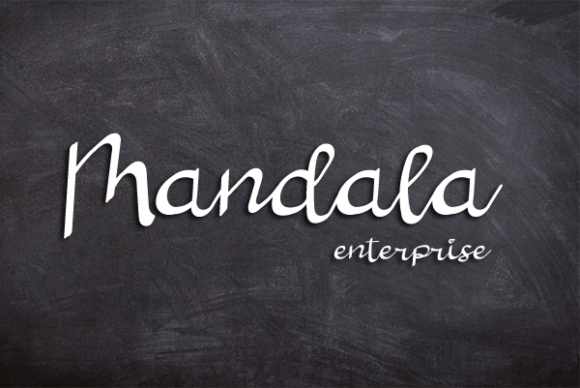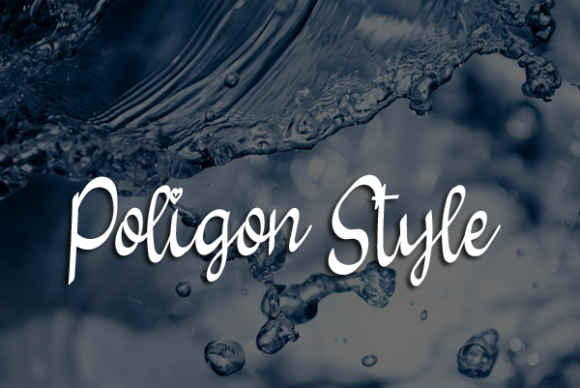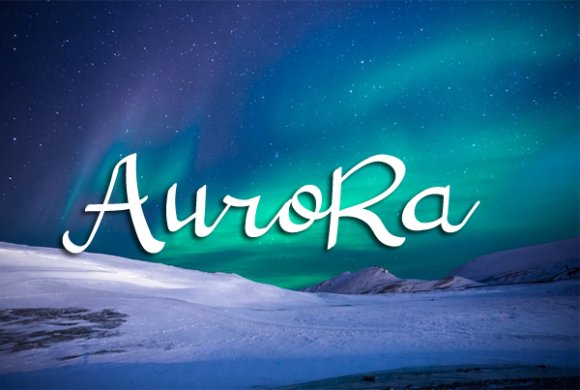
Introducing Back Ground Font: The Perfect Addition to Your Creative Projects
Are you tired of using the same old fonts in your designs? Do you want to add a touch of personality and whimsy to your projects? Look no further than Back Ground Font, a lovely script font that is sure to make your designs stand out. With its charming, playful characters that seem to dance along the baseline, Back Ground Font is the perfect addition to your most creative ideas.
What is Back Ground Font?
Back Ground Font is a unique script font that features beautiful, hand-drawn characters with a playful and charming feel. The font is designed to add a touch of elegance and sophistication to your designs, while also conveying a sense of fun and creativity. Whether you’re working on a logo, a poster, or a digital project, Back Ground Font is sure to make it shine.
Key Features of Back Ground Font
- Charming and Playful Characters: The characters in Back Ground Font are designed to be charming and playful, with a sense of movement and energy.
- Dancing Baseline: The characters in the font seem to dance along the baseline, adding a sense of whimsy and fun to your designs.
- Hand-Drawn: The font is hand-drawn, giving it a unique and personal feel.
- Elegant and Sophisticated: Despite its playful feel, Back Ground Font is also elegant and sophisticated, making it perfect for a wide range of design projects.
Why Use Back Ground Font?
There are many reasons why you should consider using Back Ground Font in your designs. Here are just a few:
- Adds Personality: Back Ground Font adds a touch of personality and whimsy to your designs, making them stand out from the crowd.
- Versatile: The font is versatile and can be used in a wide range of design projects, from logos and posters to digital projects and more.
- Easy to Read: Despite its playful feel, Back Ground Font is easy to read, making it perfect for use in body text as well as headlines.
- Unique: The font is unique and eye-catching, making it perfect for designers who want to create something truly special.
How to Use Back Ground Font
Using Back Ground Font in your designs is easy. Here are a few tips to get you started:
- Use it as a Headline Font: Back Ground Font is perfect for use as a headline font, adding a touch of personality and whimsy to your titles and headings.
- Pair it with a Simple Font: For body text, pair Back Ground Font with a simple font to create a striking contrast.
- Experiment with Colors: Back Ground Font looks great in a wide range of colors, so don’t be afraid to experiment and find the perfect hue for your design.
- Use it in Digital Projects: Back Ground Font is perfect for use in digital projects, such as social media graphics, blog posts, and more.
If you’re looking for a font that will add a touch of personality and whimsy to your designs, look no further than Back Ground Font. With its charming, playful characters and elegant feel, this font is sure to make your designs stand out. Whether you’re a designer, crafter, or DIY enthusiast, Back Ground Font is the perfect addition to your creative projects.